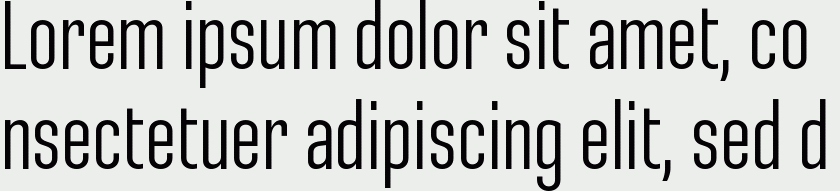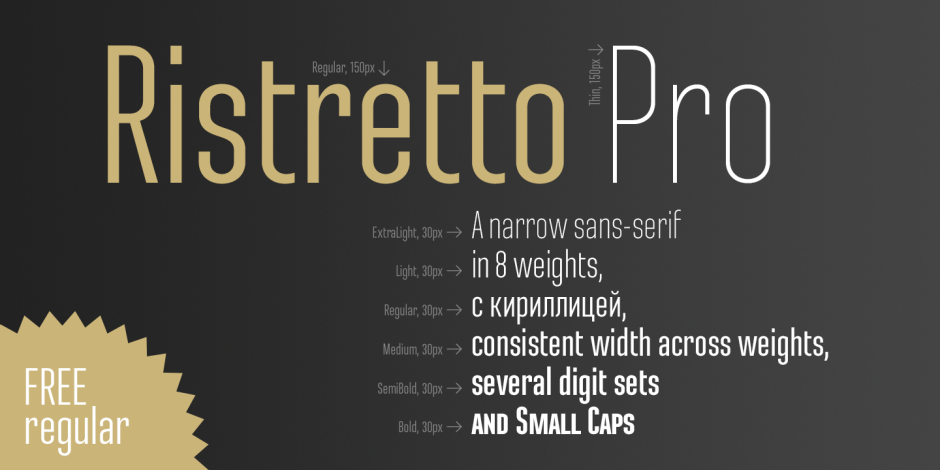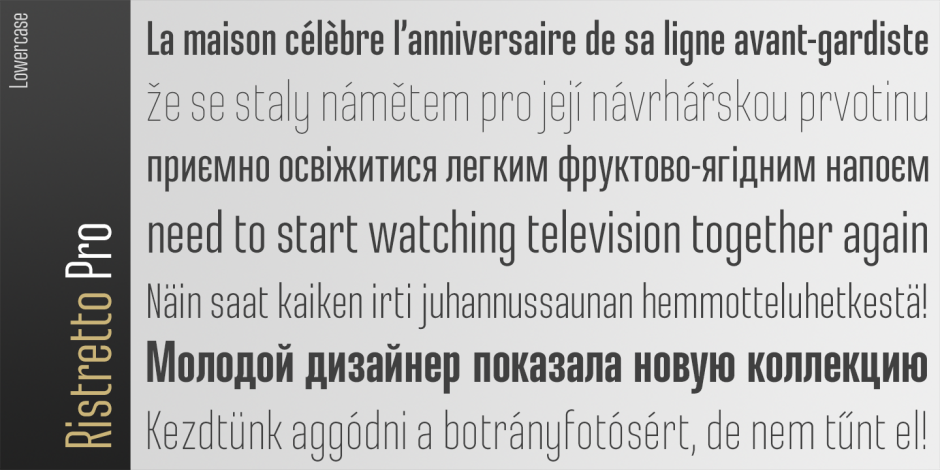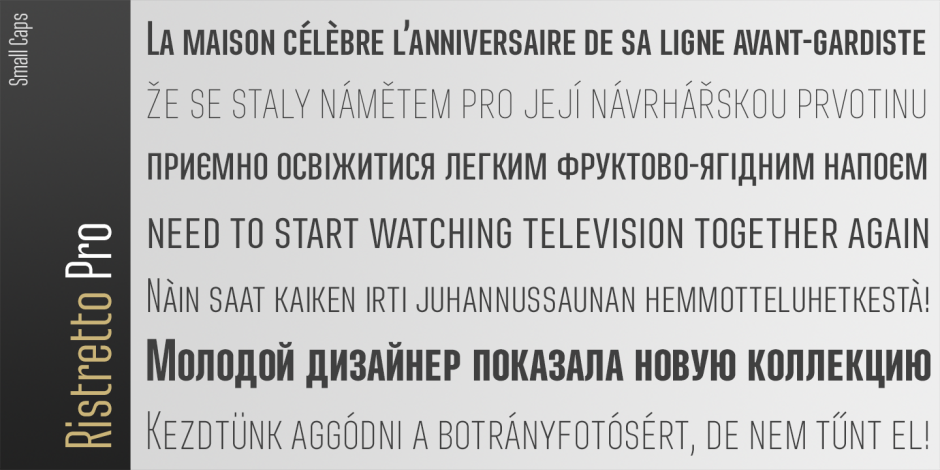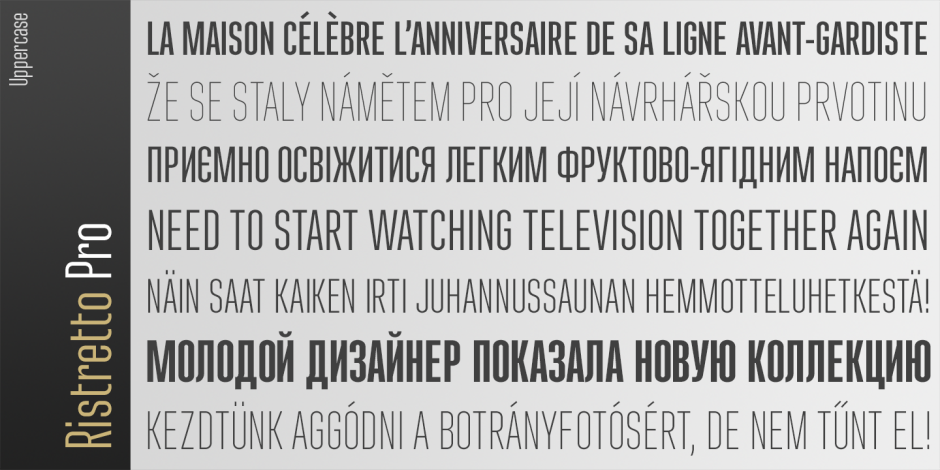
Ristretto Pro
/ Ristretto Pro Regular
Ristretto Pro is an extremely narrow display sans-serif font family available in 8 weights. It features rich language support, 6 sets of figures and small caps.